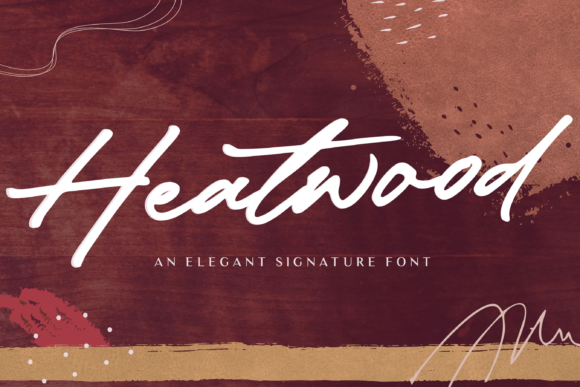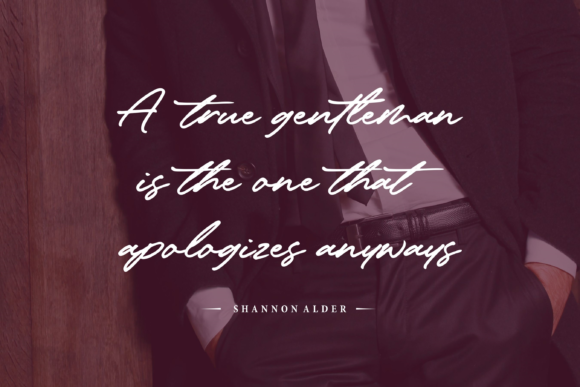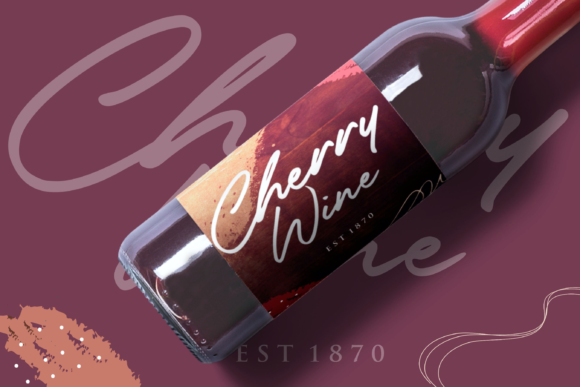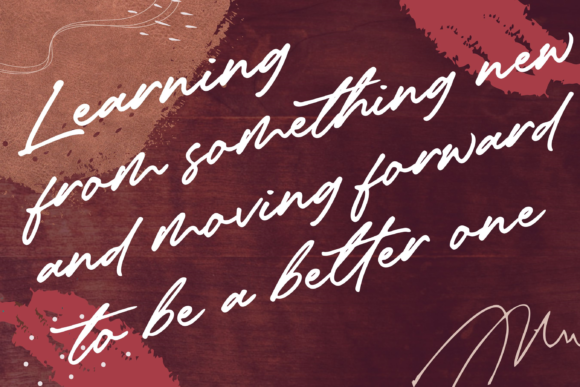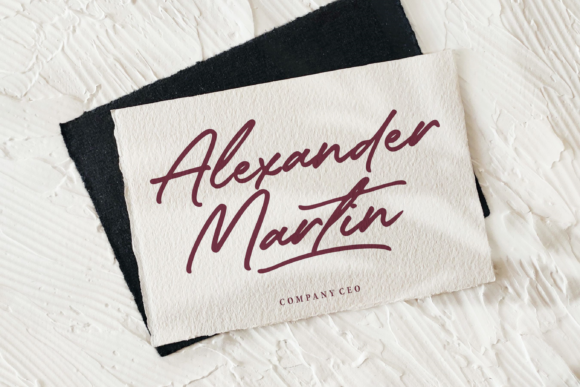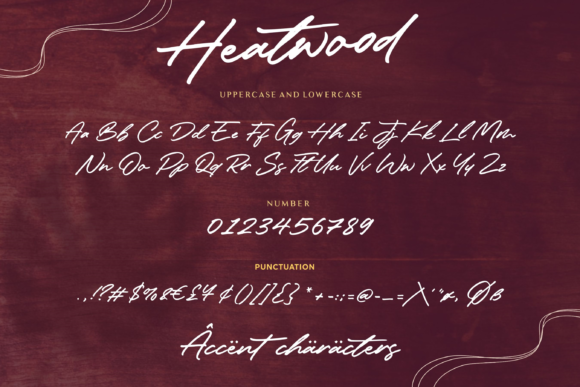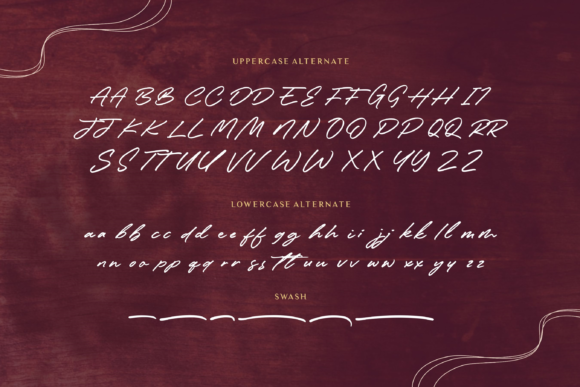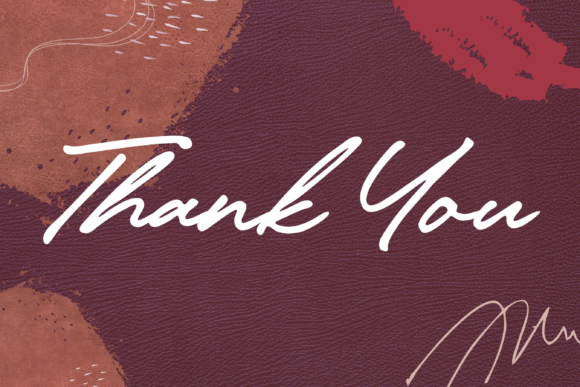
Heatwood Font
About Heatwood Font
Heatwood is a cute signature font. Whether you’re looking for fonts for Instagram or calligraphy scripts for DIY projects, Heatwood will turn any creative idea into a true piece of art!